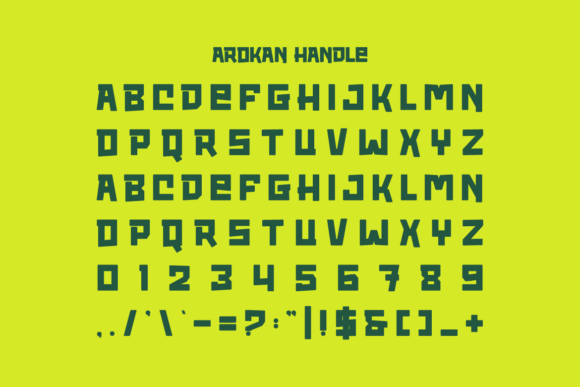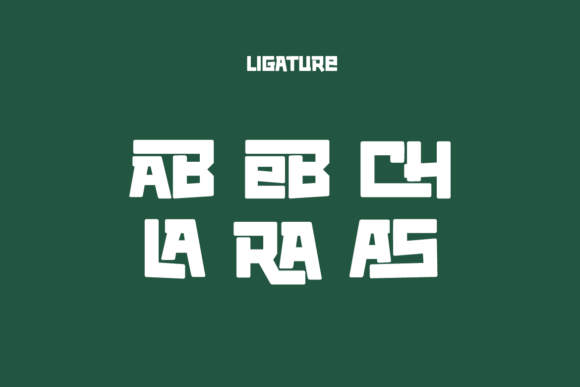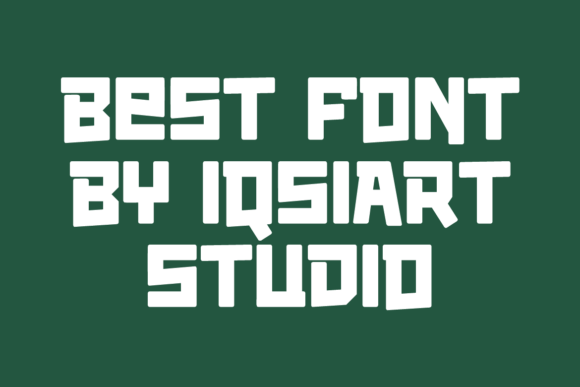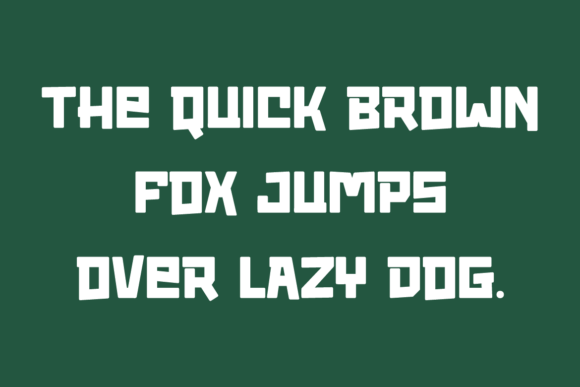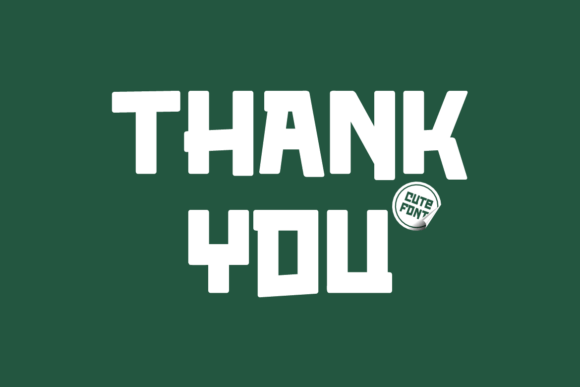
Arokan Handle Font: Elevate Your Designs with a Bold and Fun Sans Serif Font
In the world of typography, a font can make or break a design. Arokan Handle is a bold and fun sans serif font that has the potential to elevate any creation. Whether you’re a designer, craftsperson, or simply someone who appreciates great typography, Arokan Handle is an incredible asset to your fonts’ library. In this article, we’ll explore the features and benefits of Arokan Handle and why it’s a must-have for any creative project.
What is Arokan Handle Font?
Arokan Handle is a modern sans serif font that’s designed to make a statement. Its bold and fun personality makes it perfect for a wide range of applications, from branding and advertising to packaging and digital media. The font features clean lines, simple shapes, and a dash of playfulness, making it both versatile and eye-catching.
Key Features of Arokan Handle Font
- Bold and Fun Personality: Arokan Handle has a bold and fun personality that can add a touch of excitement to any design.
- Clean and Simple Design: The font features clean lines and simple shapes, making it easy to read and versatile for various applications.
- Sans Serif Style: Arokan Handle is a sans serif font, which means it doesn’t have serifs or small lines at the end of the letters.
- Highly Legible: The font is designed to be highly legible, even at small sizes, making it perfect for body text and headlines.
Benefits of Using Arokan Handle Font
So, why should you use Arokan Handle font in your designs? Here are some benefits:
- Elevate Your Designs: Arokan Handle can add a touch of sophistication and playfulness to your designs, making them stand out from the crowd.
- Versatility: The font is versatile and can be used for a wide range of applications, from branding and advertising to packaging and digital media.
- Easy to Read: Arokan Handle is highly legible, making it perfect for body text and headlines.
- Unique Personality: The font has a unique personality that can help you establish a brand identity or create a distinctive look for your designs.
Who Can Benefit from Arokan Handle Font?
Arokan Handle font is perfect for:
- Graphic Designers: Graphic designers can use Arokan Handle to create stunning branding, advertising, and marketing materials.
- Crafters: Crafters can use the font to create beautiful handmade cards, gift tags, and other paper crafts.
- Digital Media Creators: Digital media creators can use Arokan Handle to create engaging social media graphics, blog posts, and website content.
- Anyone Who Loves Typography: Anyone who loves typography can use Arokan Handle to add a touch of personality to their designs.
In conclusion, Arokan Handle is a bold and fun sans serif font that’s perfect for designers, craftspersons, and anyone who appreciates great typography. Its versatility, legibility, and unique personality make it an incredible asset to any fonts’ library. Whether you’re creating branding materials, advertising campaigns, or simply handmade crafts, Arokan Handle is sure to elevate your designs and add a touch of excitement to your projects.